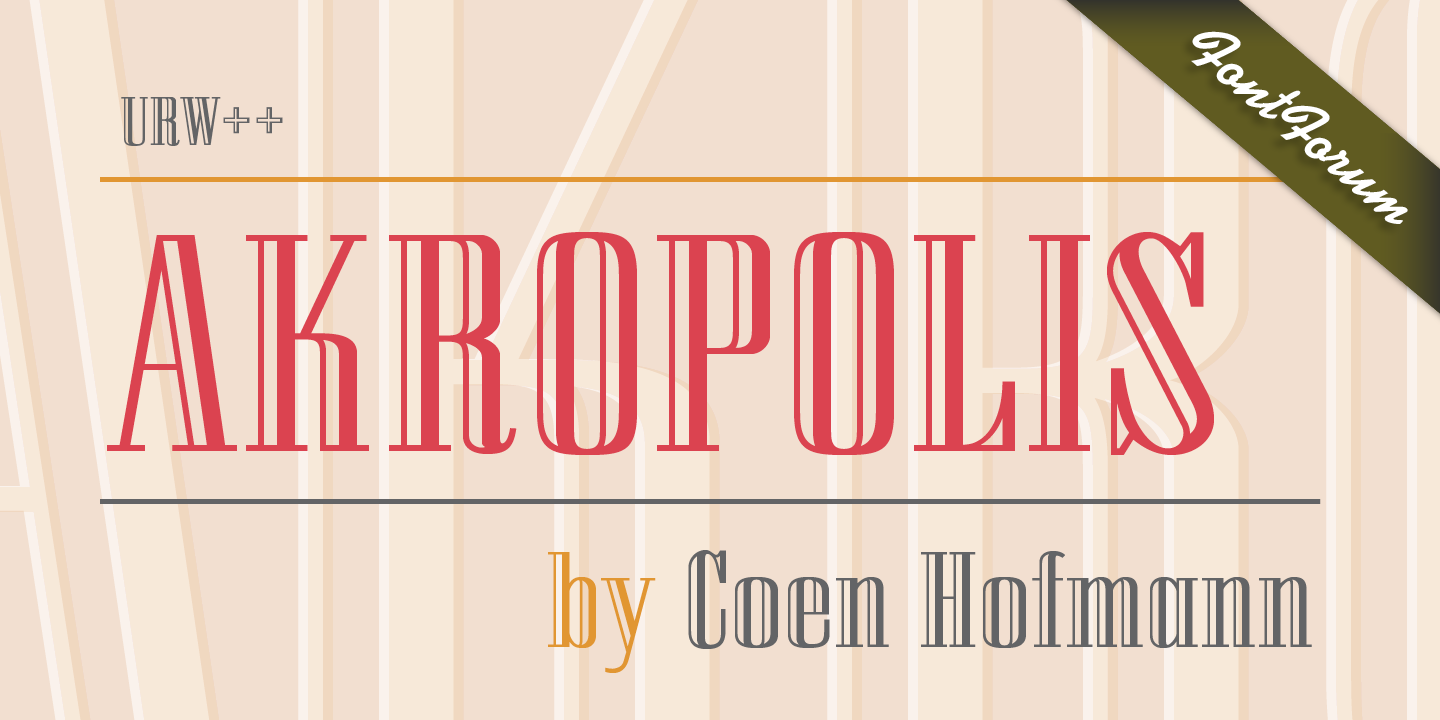
URW Akropolis Font is perfect for archaeological museum exhibitions, Greek heritage tourism campaigns, classical architecture presentations, ancient history publications, Mediterranean cultural projects, university classics departments, philosophical society materials, and prestigious academic conferences. This distinguished typeface brings ancient Greek wisdom and classical civilization grandeur to any design project celebrating Western civilization's foundational heritage.
What makes URW Akropolis Font exciting is its masterful embodiment of classical Greek architectural principles combined with contemporary typography excellence that captures the timeless beauty of Athenian democracy and philosophical enlightenment. The noble letterforms feature proportions inspired by the Parthenon's golden ratio and classical column structures that create an unmistakably scholarly appearance. Each character reflects the intellectual heritage of Socrates, Plato, and Aristotle, making it ideal for institutions that represent learning, wisdom, and cultural achievement.
The URW Akropolis Font family typically includes multiple weights from light to bold with complete uppercase and lowercase letters, numbers, punctuation marks, and Greek special characters. The comprehensive Unicode support ensures proper display of both Latin and Greek text while maintaining elegant visual consistency for classical studies and Mediterranean cultural applications.
Whether you're developing academic institutions or creating classical heritage materials, URW Akropolis Font Free Download offers unmatched scholarly authority and classical elegance. This distinguished typography choice transforms educational content into inspiring intellectual experiences that resonate with audiences appreciating classical learning and philosophical inquiry. The font's noble construction ensures exceptional performance across academic applications while maintaining its distinctive classical character that makes every design project feel like a journey to the birthplace of democracy, philosophy, and Western intellectual tradition where wisdom flourishes eternally.